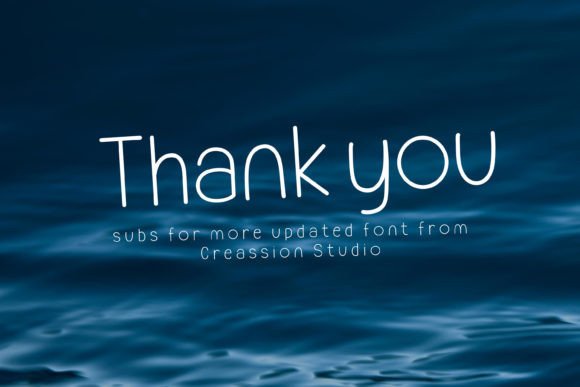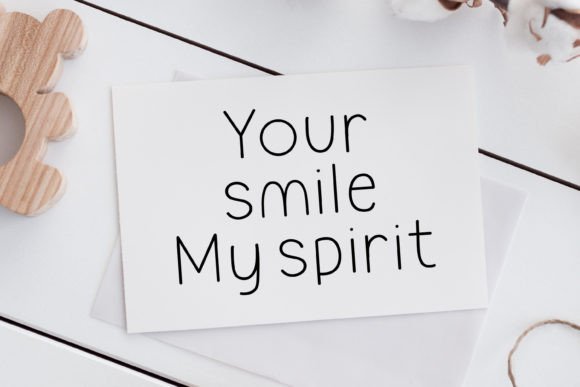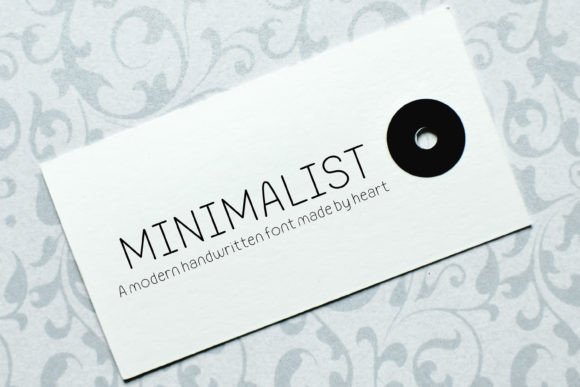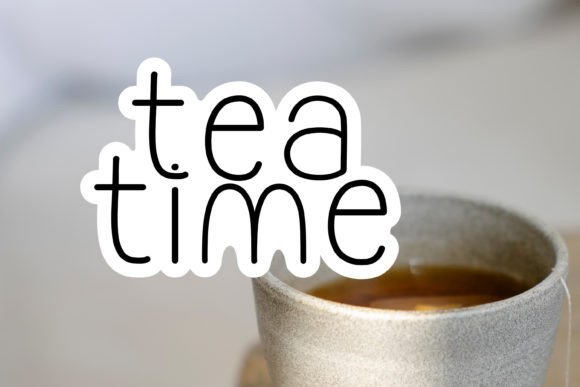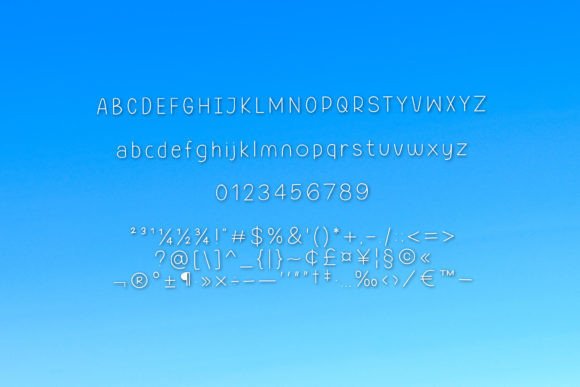
Introduction to New Born Font
As designers, we’ve all been there – staring at a blank page, trying to bring our creative vision to life. The perfect font can make all the difference. Imagine the moment when your design suddenly comes together, and every element is in harmony. That’s exactly what the New Born Font can do for your next project.
This minimal and neat sans serif font is a game-changer for designers. With its versatility, it can be easily matched to a wide range of creative projects, from logos to brochures, and even websites. What’s more, it’s available for a free download, making it an invaluable resource for any design enthusiast. Whether you’re working on a high-quality design or just starting out, the New Born Font is sure to elevate your work and make it stand out.
Key Features of New Born Font
- Features a clean and modern design ideal for various applications
- Supports a wide range of languages and characters
Honest Review: New Born Font
I recently had the chance to work with the New Born Font, and I’m excited to share my thoughts on this design resource. I downloaded it for free, and I was impressed by the high-quality design. The font is perfect for any creative project that requires a clean and modern look.
- ✨ The transparent background makes it easy to use on any design, from logos to brochures.
- ✨ The font is highly customizable, allowing for a range of styles and sizes.
- ⚠️ The font may not be suitable for very small or very large text sizes, as it can become pixelated.
- ⚠️ The font is not as versatile as some other options, with limited ligatures and alternates.
Overall, I was impressed by the New Born Font’s high-quality design and ease of use. While it may have some limitations, it’s a great option for designers looking for a clean and modern font for their creative projects.
The New Born Font is a high-quality design resource that offers a unique and creative look for your projects. It’s available for free download, making it an excellent choice for designers and non-designers alike.
The New Born Font is perfect for a variety of creative projects, including:
- Infographics and data visualizations.